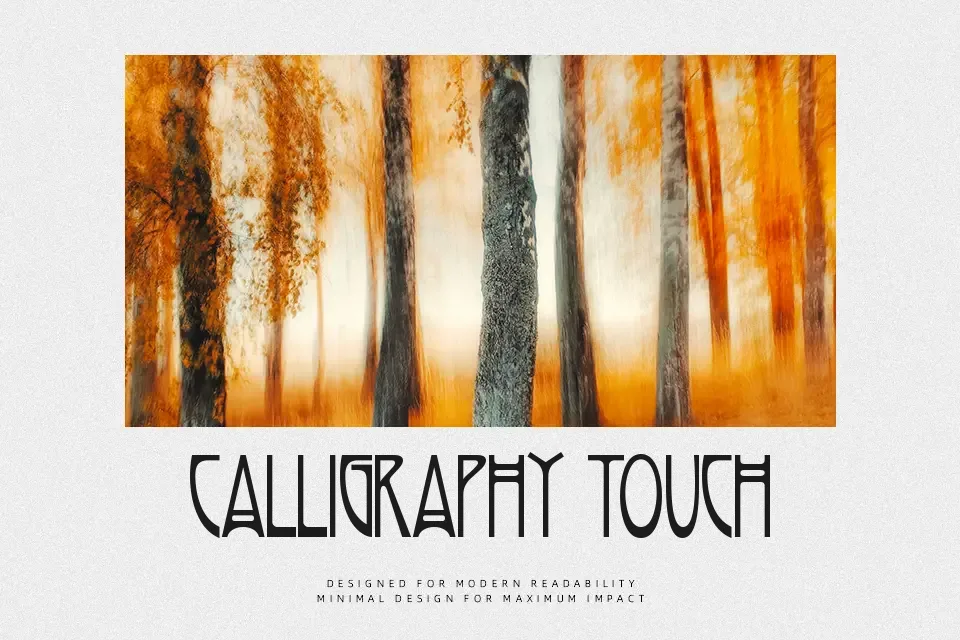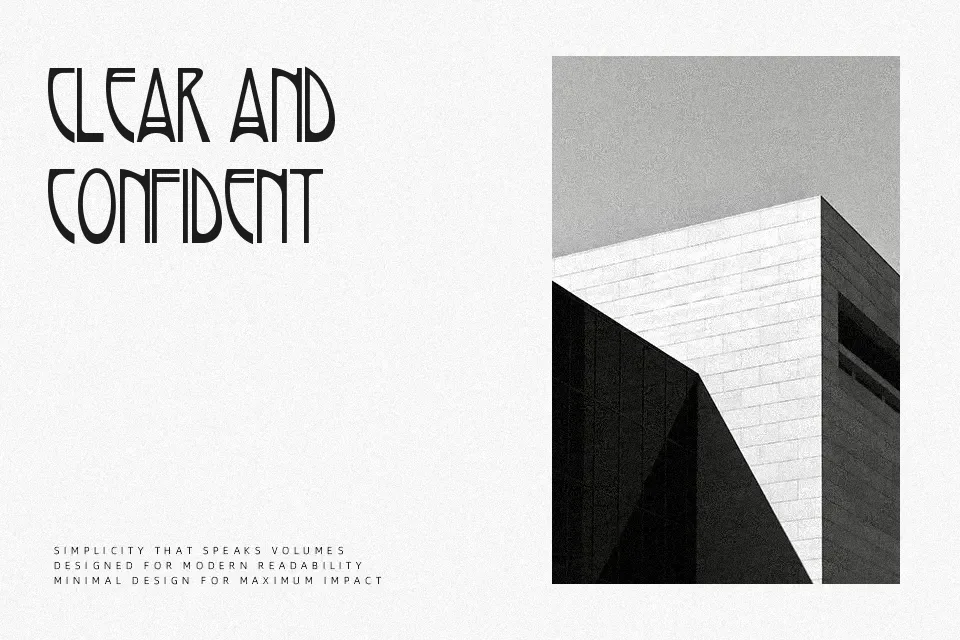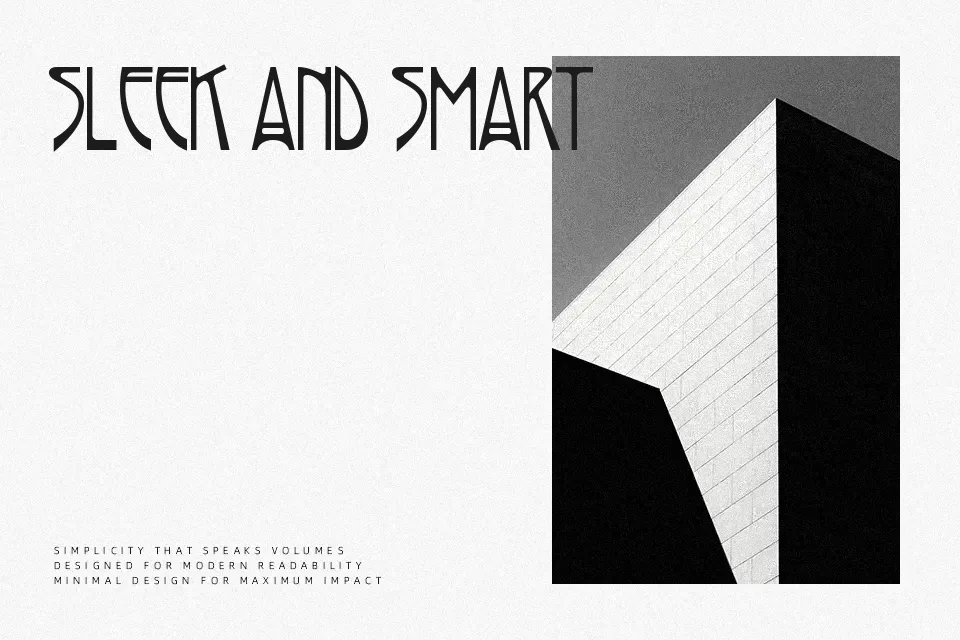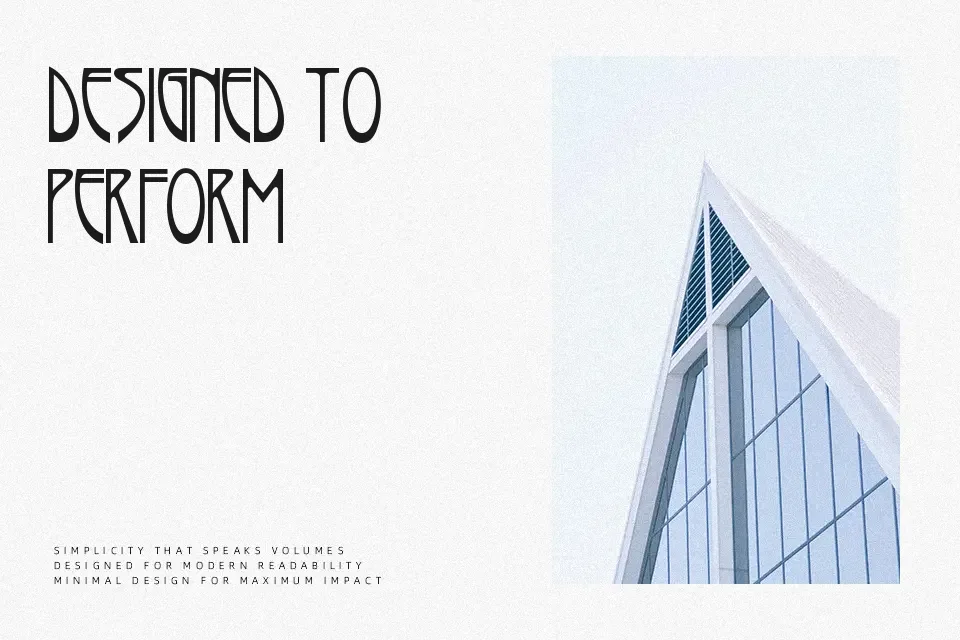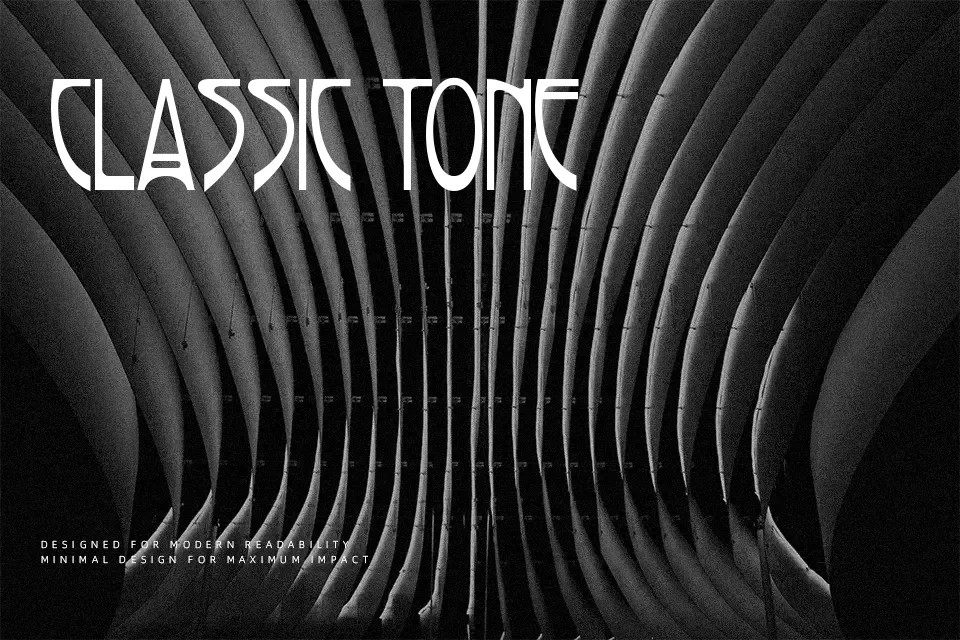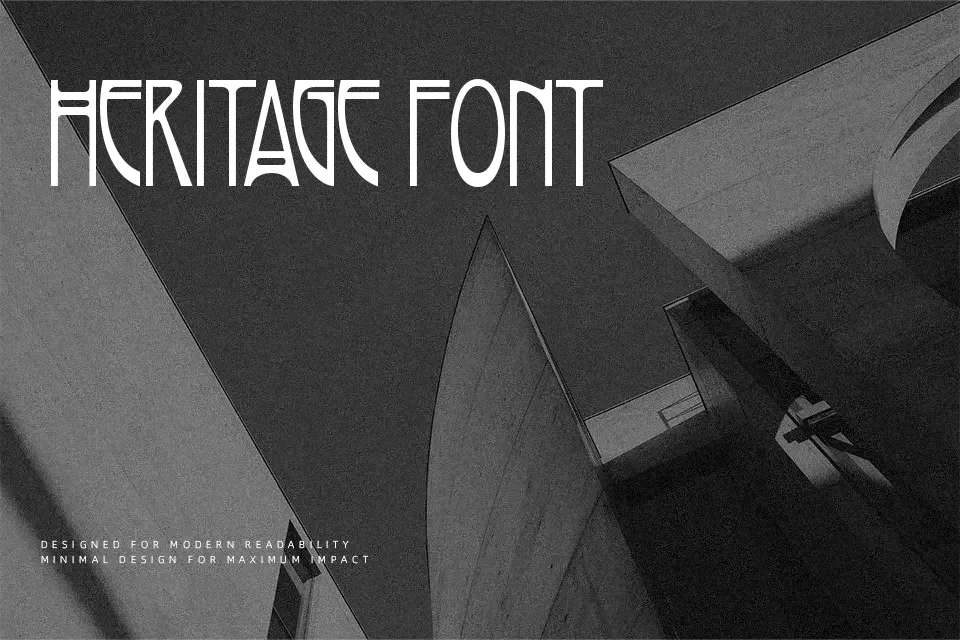
Rivanna Font
Rivanna Font performs exceptionally well when displayed at larger sizes, where its geometric structure and elegant curves can be fully appreciated. The typeface offers a distinct retro sans-serif appearance, combining consistent stroke weights with sharp, well-defined letterforms. Its characters maintain balanced visual spacing, creating a clean rhythm across short display text. The tall proportions and stylistic terminals add a decorative flair that suits vintage branding, premium packaging, and festival posters. However, these same decorative details become less effective in smaller applications. The dense forms reduce continuous reading comfort, making the design less suitable for long editorial paragraphs or technical documents. Overall, the letterforms provide excellent clarity for prominent headlines while retaining a sophisticated, classic visual rhythm.
vintage product packaging
coffee shop menu headers
boutique cosmetic branding
spreadsheet data
Perfect for branding, headline, and packaging, with a classic and display style.